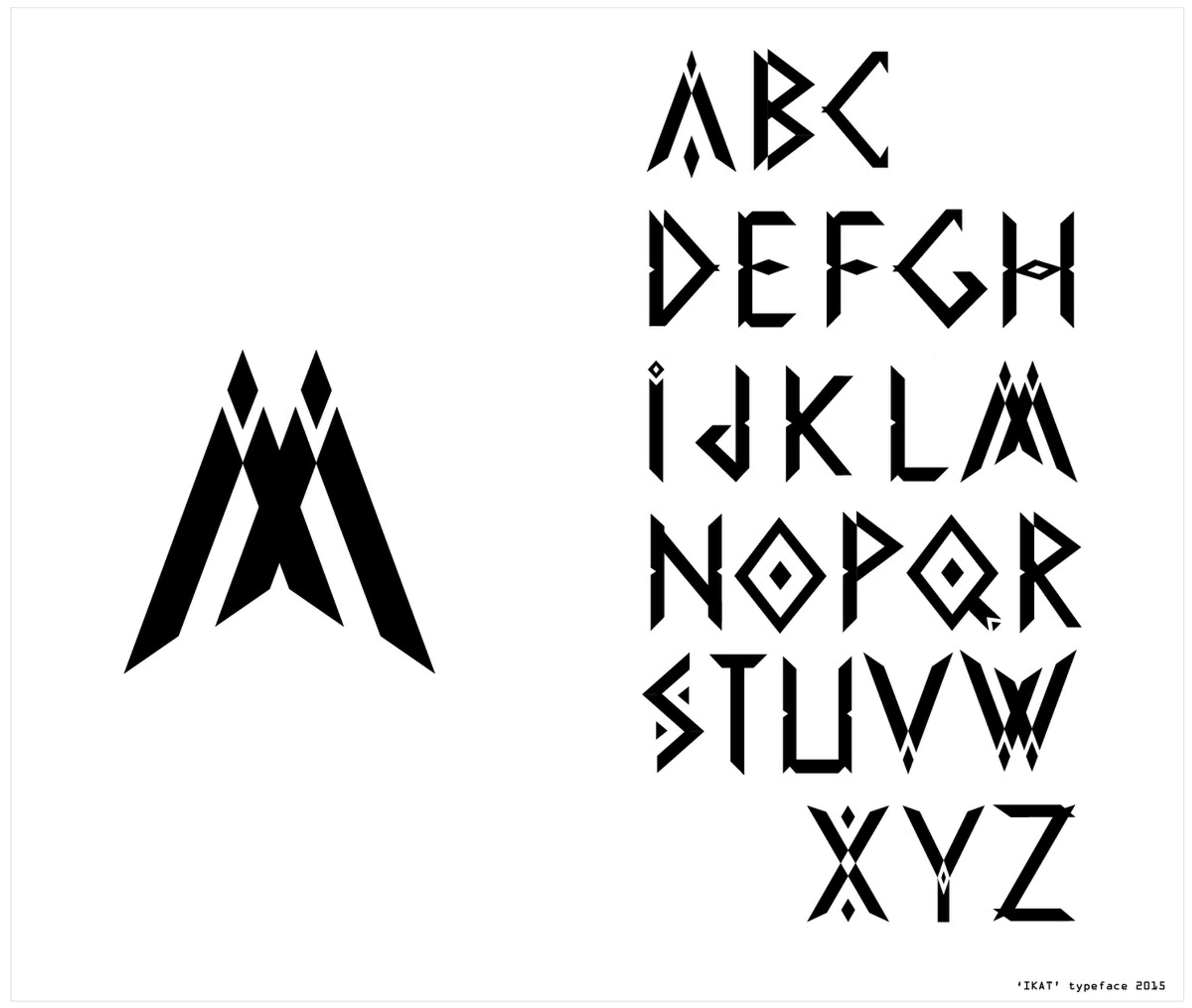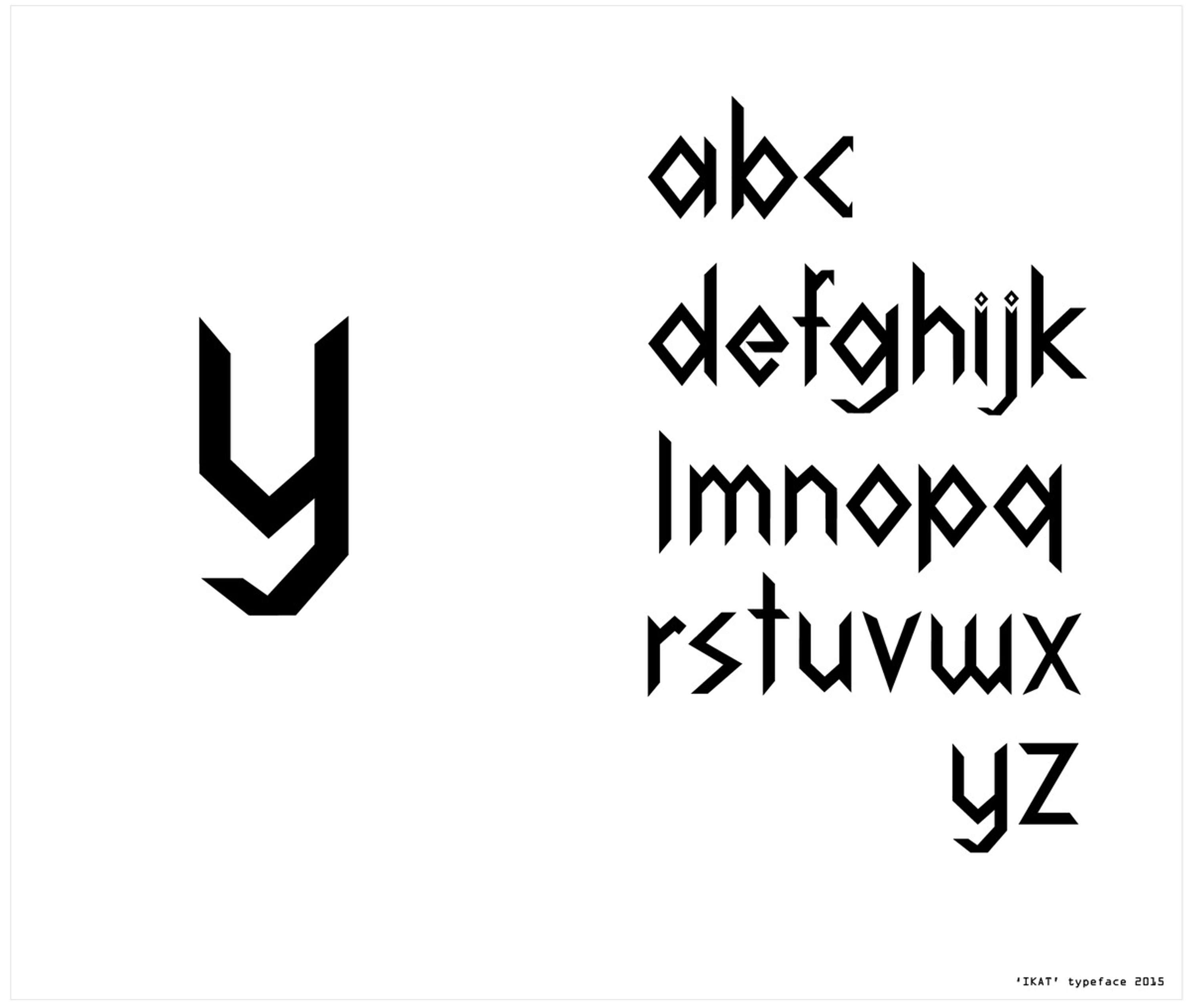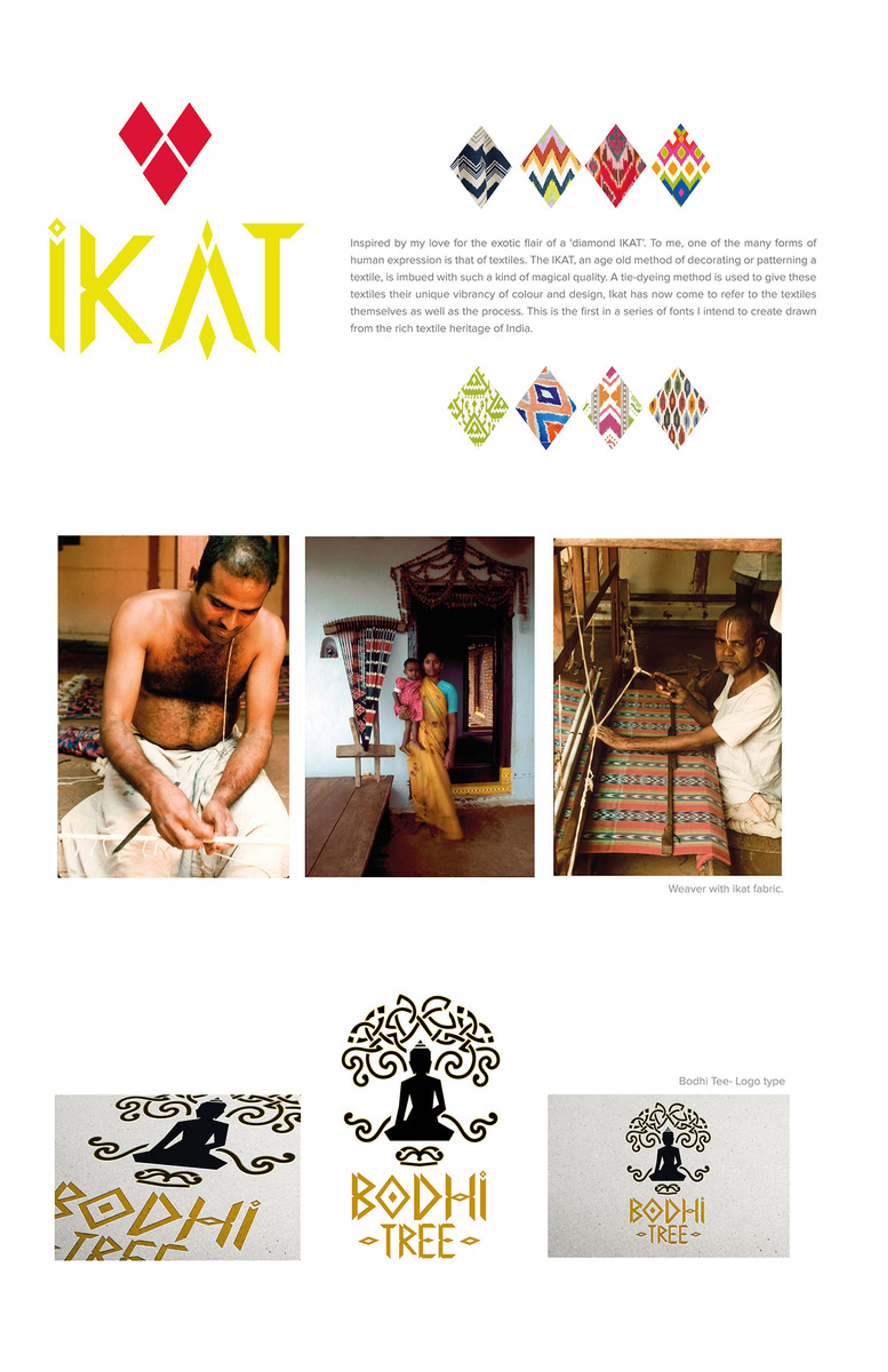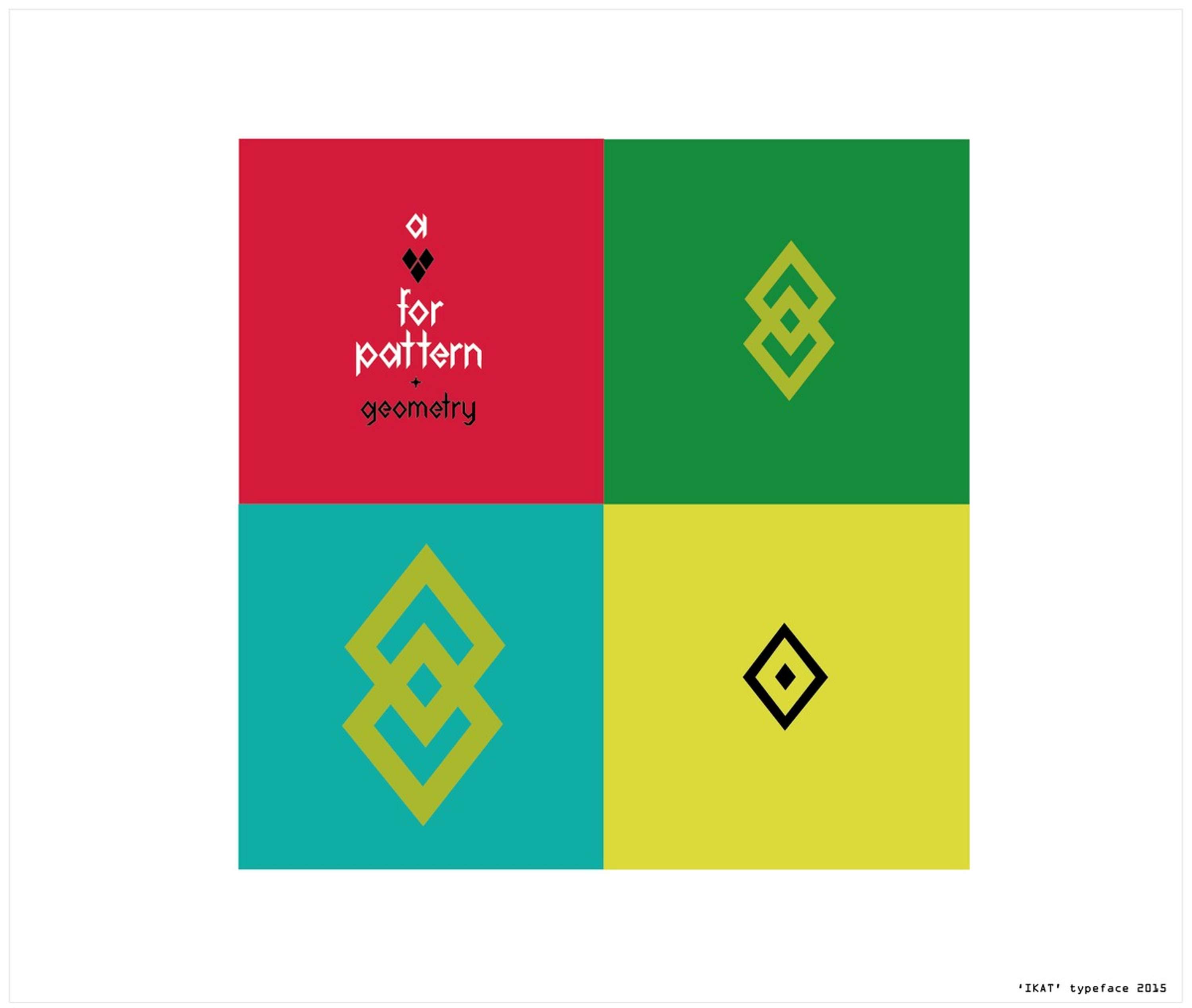
the Ikat Font
• Mathanki Kodavasal
Inspired by my love for the exotic flair of a 'diamond IKAT'. To me, one of the many forms of human expression is that of textiles. The IKAT, an age old method of decorating or patterning a textile, is imbued with such a kind of magical quality. A tie-dyeing method is used to give these textiles their unique vibrancy of colour and design, Ikat has now come to refer to the textiles themselves as well as the process. This is the first in a series of fonts I intend to create drawn from the rich textile heritage of India.
the Ikat Font by Mathanki Kodavasal